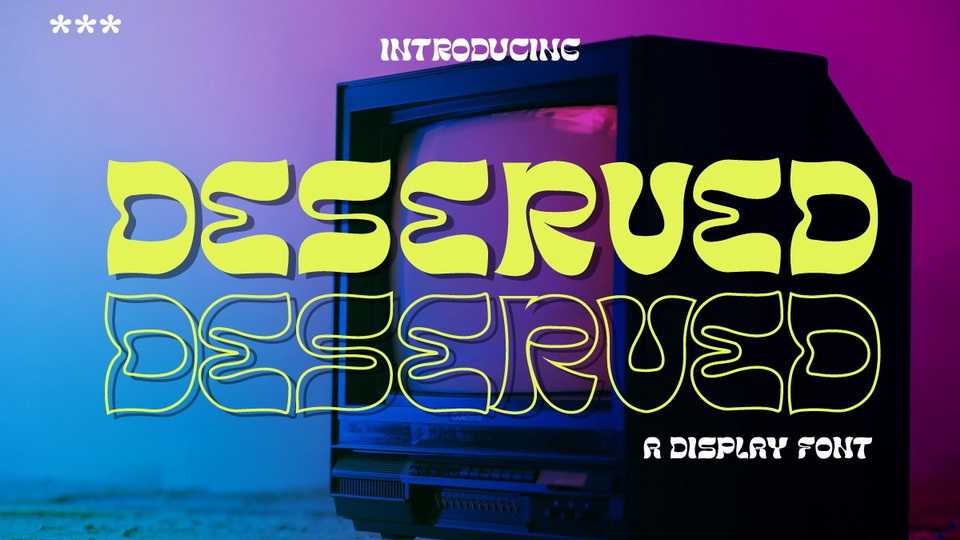
Download Deserved font, an elegant look typeface. Deserved is a unique font, with bold and thin sizes, adds to the impression of elegance, luxury and class.